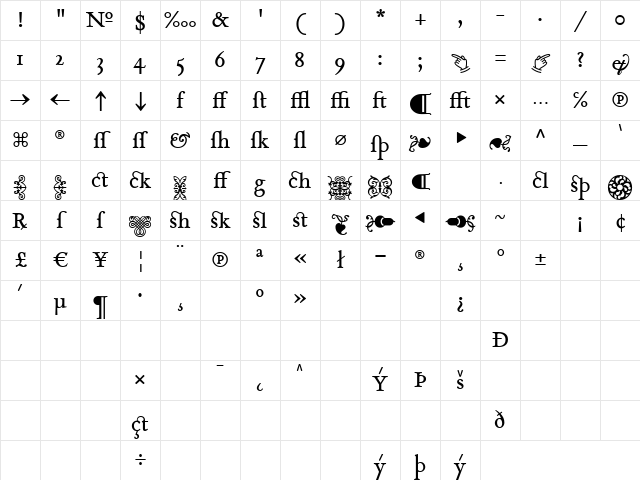
Tribute RomanLigatures
Style: RomanLigatures
Tribute Family
Design Context for Tribute
Tribute is a composed and adaptable typeface that performs quietly and consistently across a wide range of design contexts.